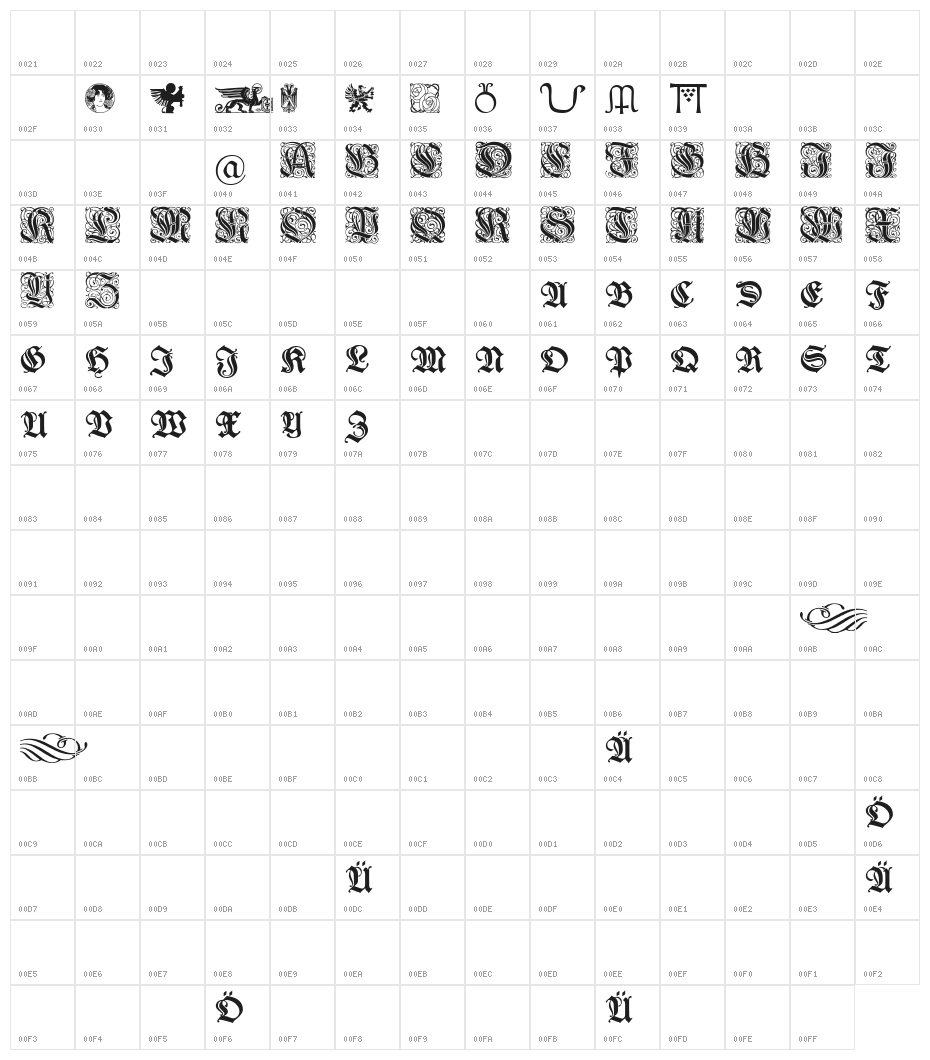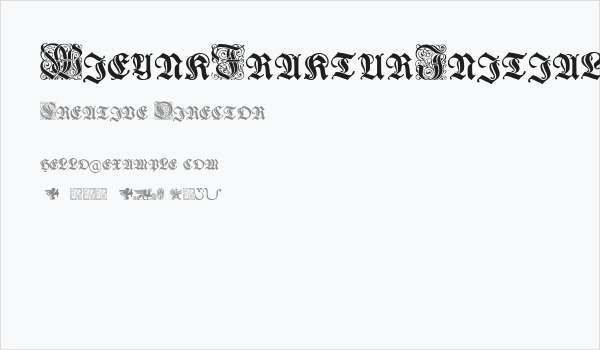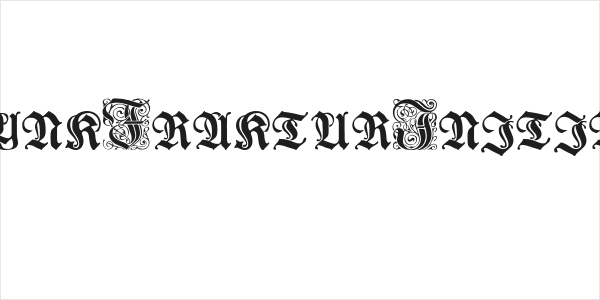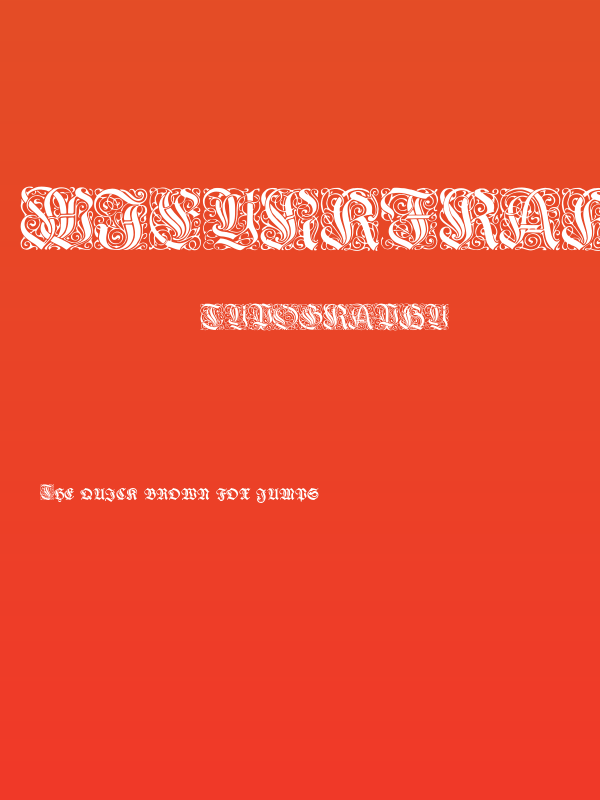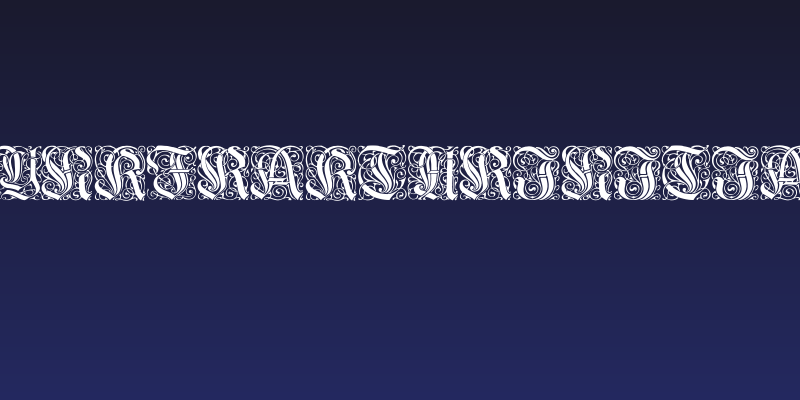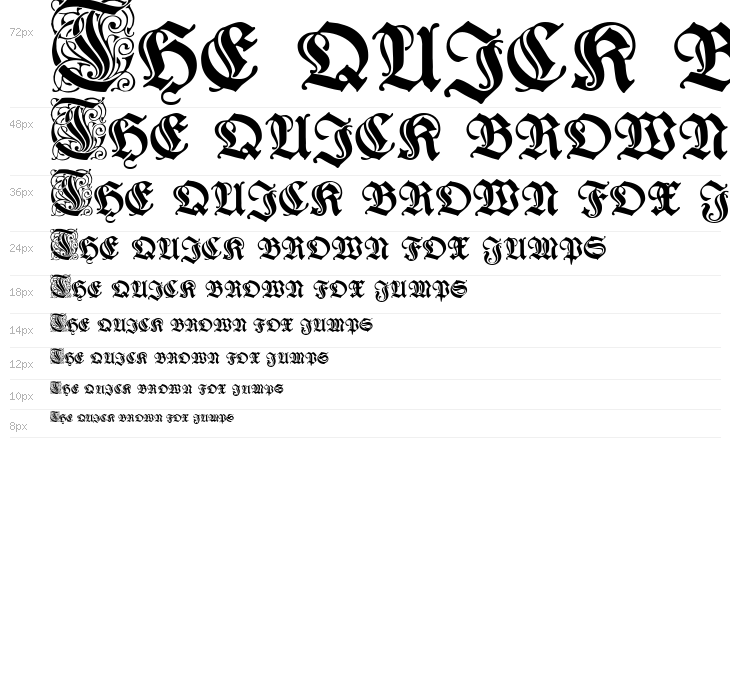
WieynkFrakturInitialen Font
WieynkFrakturInitialen Description
This font is a highly decorative and intricate typeface that combines elements of Gothic and ornamental styles. The uppercase letters are adorned with elaborate flourishes and embellishments, making each character a work of art. The design is reminiscent of medieval manuscripts, with a strong emphasis on bold, blackletter forms. The font features a high level of detail, with swirling patterns and motifs that add a sense of grandeur and historical significance. It is ideal for projects that require a touch of elegance and sophistication, such as invitations, certificates, or branding for luxury products.
| Proposed Projects | Ideal for wedding invitations, historical documents, luxury branding, and decorative posters. |